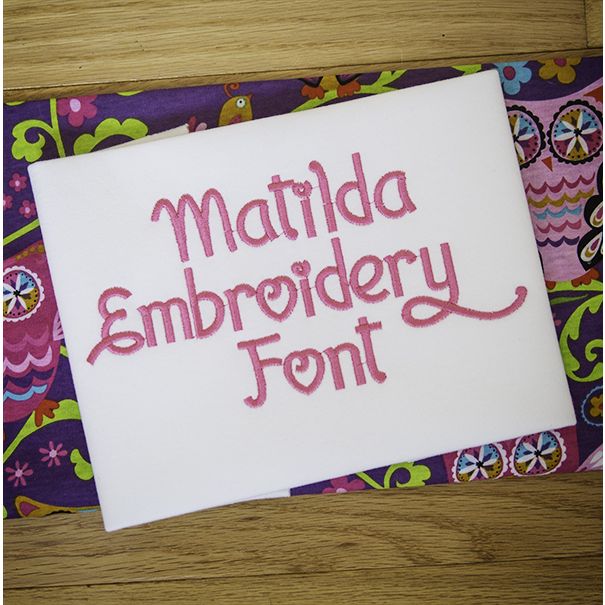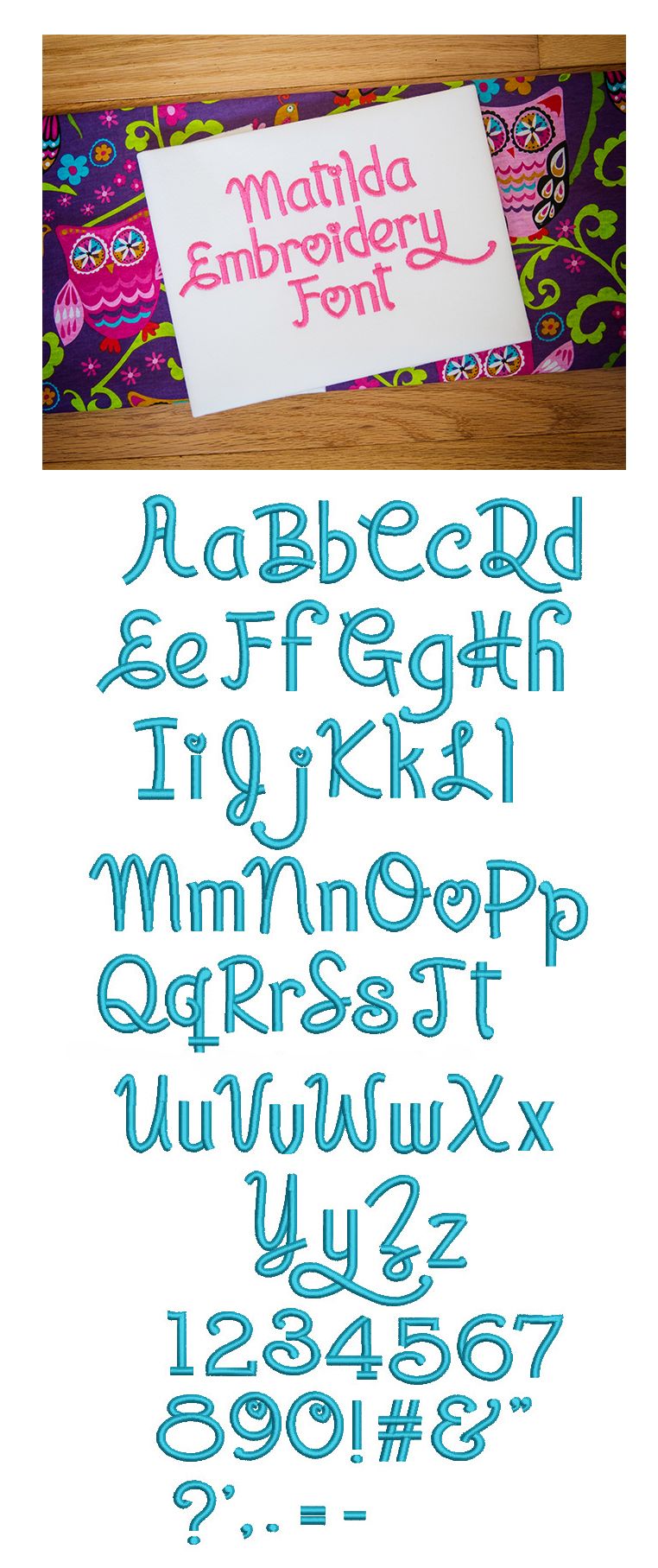
Matilda Satin Stitch Embroidery Font
Another super cute, thick, chunky and whimsical font! All of our font alphabets are 100% manually digitized to bring you maximum stitch quality.